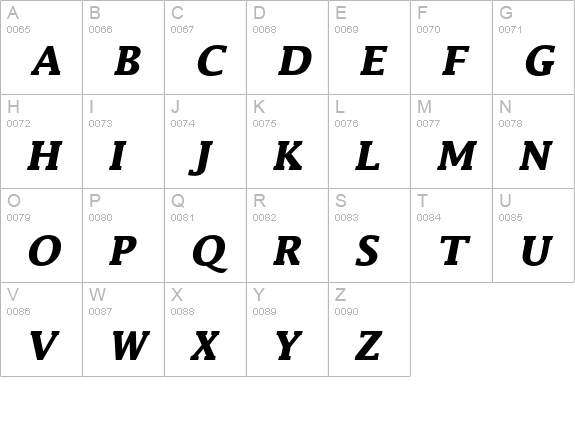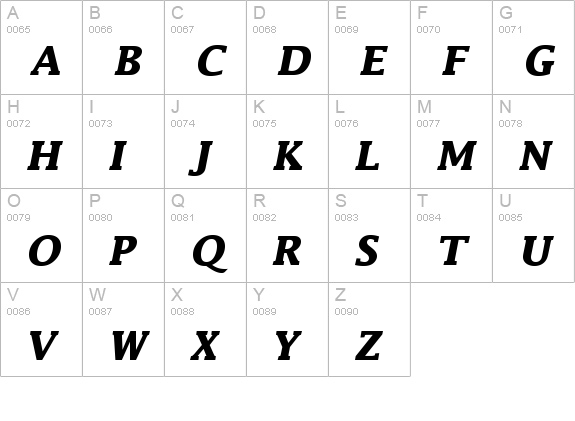
Lucida Std Bold Italic Font Details
Lucida Std Bold Italic is a strong, high-contrast, italic variant in the Lucida typeface family \xE2\x80\x94 well suited to headlines, attention-grabbing titles, and strong calls-to-action.
Lucida Std Bold Italic is a visually striking and versatile typeface that exudes elegance and sophistication. Its bold yet graceful strokes make it ideal for creating eye-catching designs with a touch of flair. This font is perfect for adding emphasis and style to headings, titles, and other important text elements. And the best part is, Lucida Std Bold Italic is available for free download at FontsMarket.com. This means you can easily access and use this beautiful font in your projects without any cost. Embrace the power and beauty of Lucida Std Bold Italic to elevate your designs and make a lasting impression.